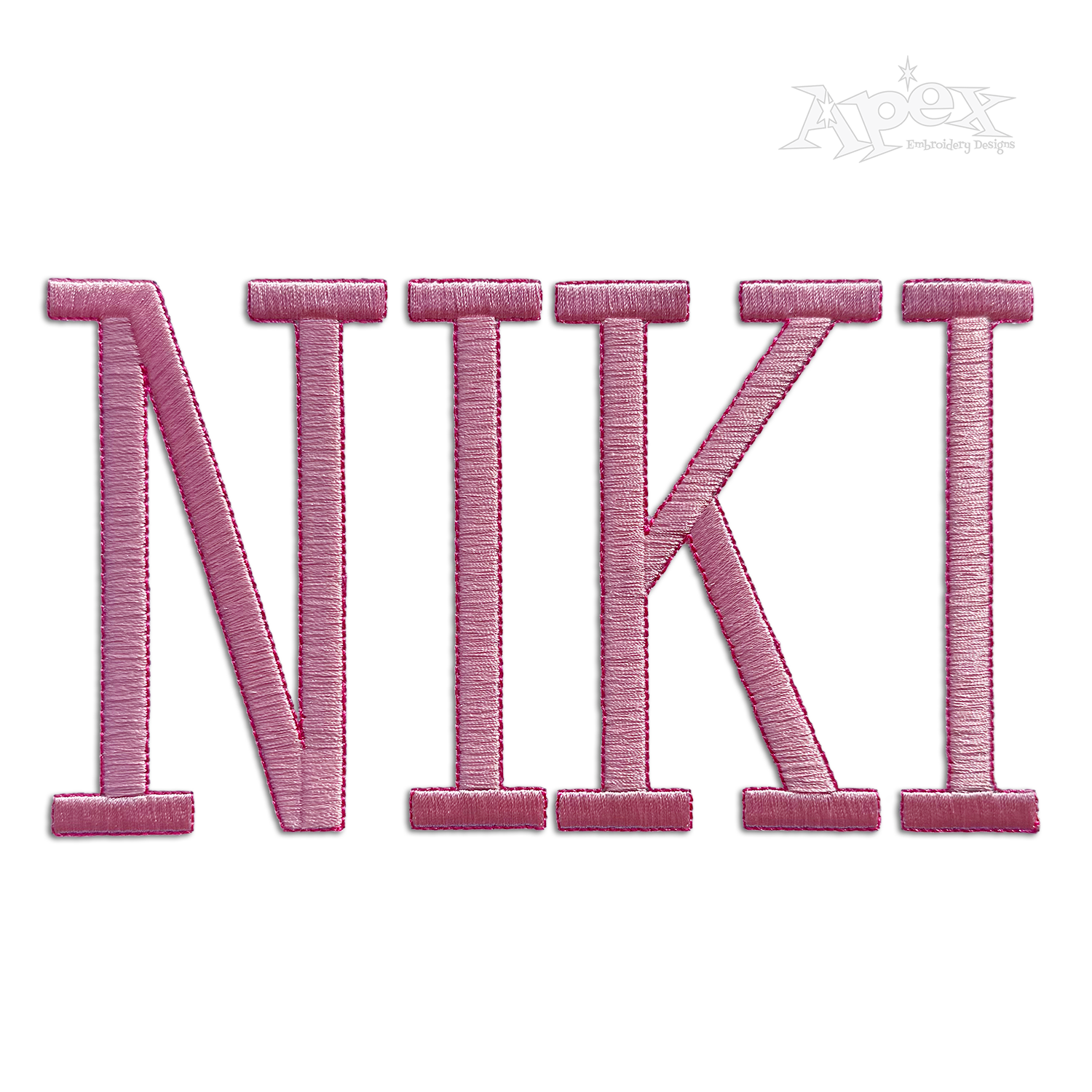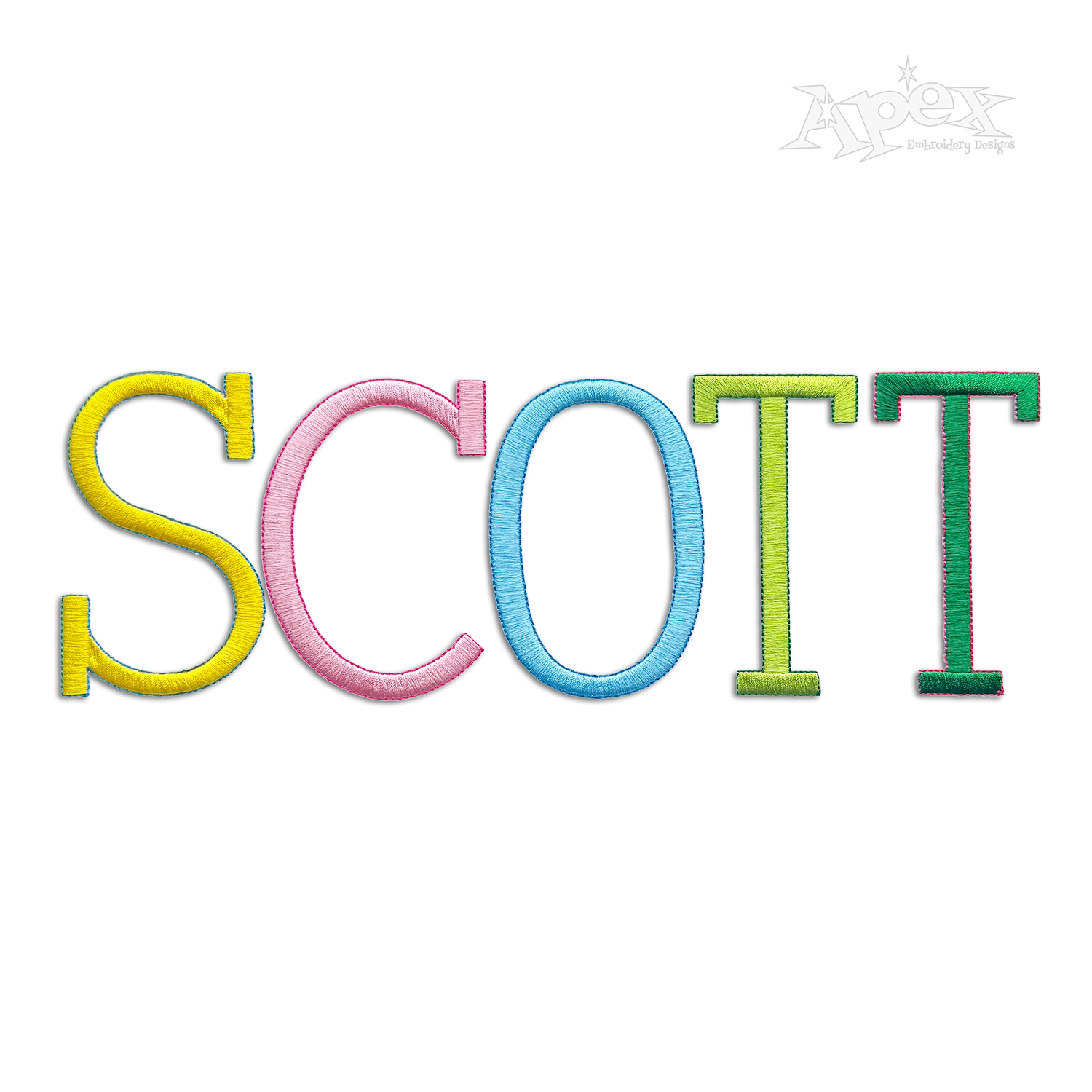
Garland Slab Serif Embroidery Font
Vintage typewriter strike meet clean architectural needlework. Tall, slender proportions pull aesthetic from classic print shop letterpress. Design maximize vertical presence across narrow bounds. Solid satin stitch alphabet carry crisp density; optional running stitch frame add dual-color contrast pop. Balance heritage warmth with clean modern lines for heirloom embroidery projects.
- Dual-color file design: Run with outline border or skip color stop for single-color satin.
Project Ideas for Garland Slab Serif
Narrow letter geometry fit tight fabric zones across custom monogramming lines:
- Holiday stockings: Long family names stitch clean on slim velvet or knit cuffs.
- Luxury table linens: Monogram linen cocktail napkins, dinner place settings, table runner trim.
- Heirloom bedding: Center monogram across crisp cotton pillow shams and duvet corners.
- Canvas totes: Heavyweight fabric personalization with high thread contrast.
- Bespoke resort wear: Clean name accents on bridal robes and linen resort shirts.
- Stocking cuff: Center horizontal on cuff band with high-contrast thread.
- Dinner napkin: Diagonal placement 1.5 inches from corner hemline.
- Garment chest: Left chest embroidery 4 inches below shoulder collar seam.
- Sleeve cuff: 1-inch initials above wrist hem line for subtle personalization.
- Border trim: Sequential number or monogram repeat along runner borders.
Garland Slab Serif Craft & Letterform Details
Typewriter strike need exact stitch translation. Digitized vertical strokes tall, condensed for tight cuff widths. Balanced slab serifs hold straight edge definition without thread bunching. Core column run dense satin stitch with calibrated push-pull compensation. Outer run stitch create two-color contrast frame or skip completely for monochrome finish. Clean jump trims keep reverse side flat across luxury textiles.